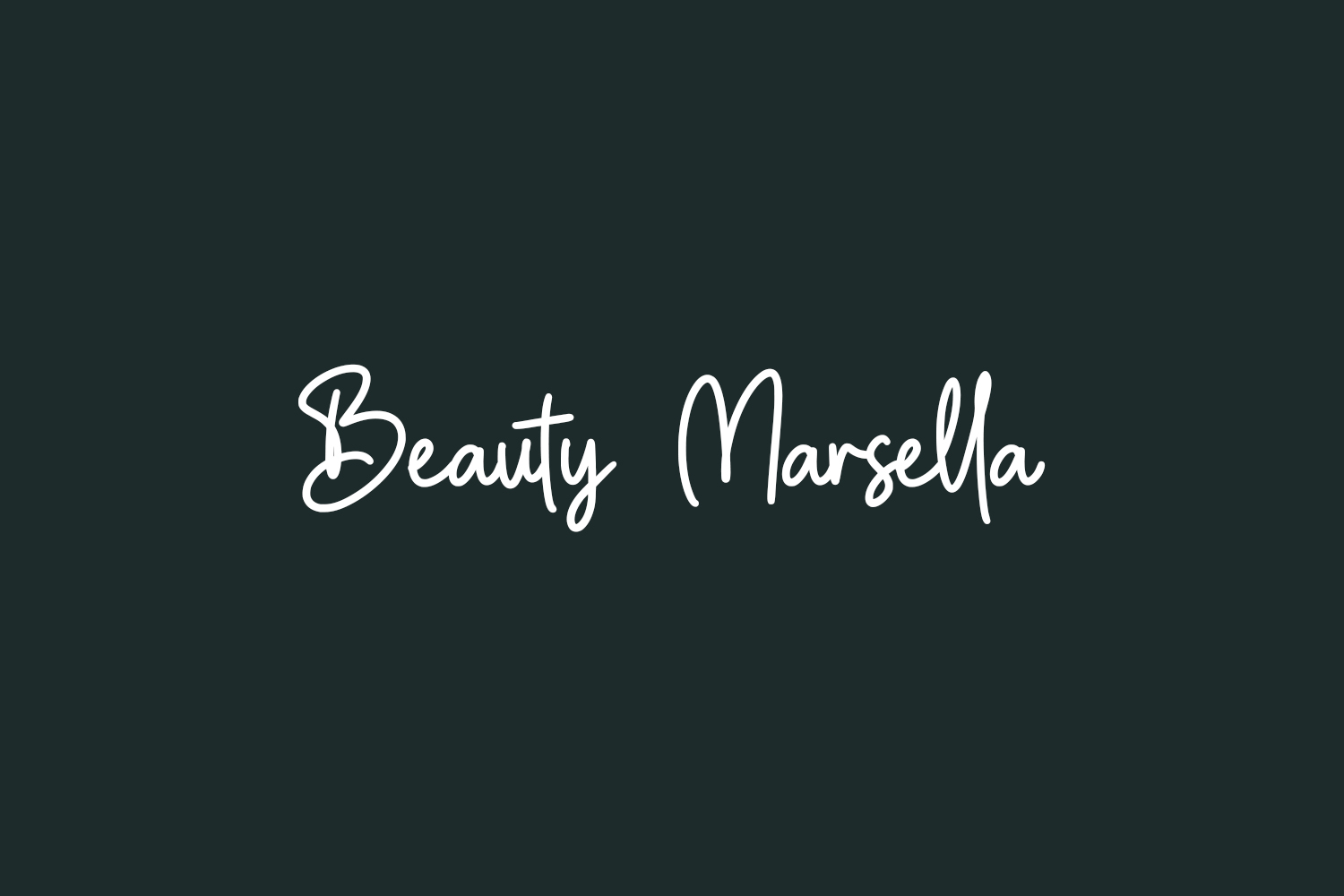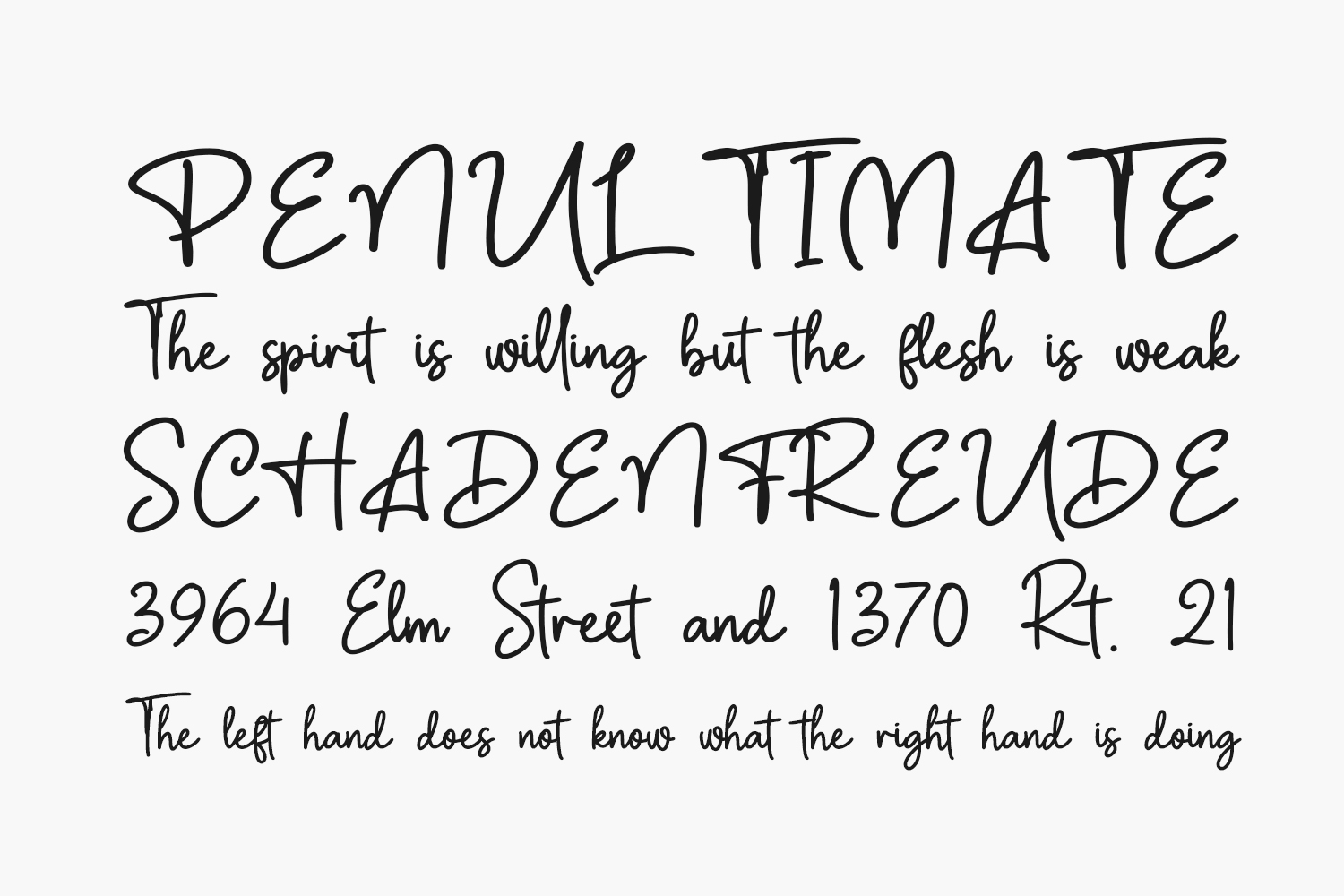
Beauty Marsella Free Font is a sleek and stylish monoline signature typeface. It is perfect for fashion-forward designs. Its simple yet sophisticated lines exude confidence and grace, capturing the essence of modern elegance. The font is versatile and versatile, making it ideal for logos, business cards, or other branding materials. Whether you’re looking to make a bold statement or simply want to add a touch of sophistication to your designs, this font is the perfect font to add a touch of glamour and style.
Designed by Mozatype